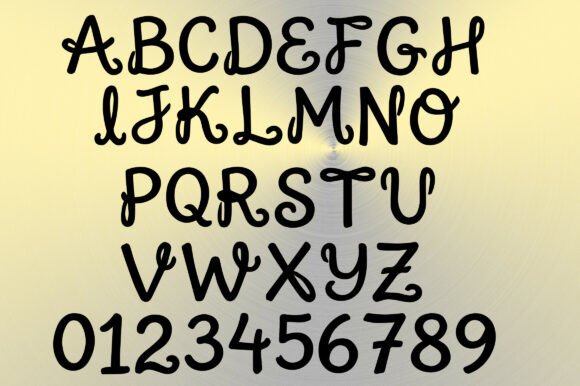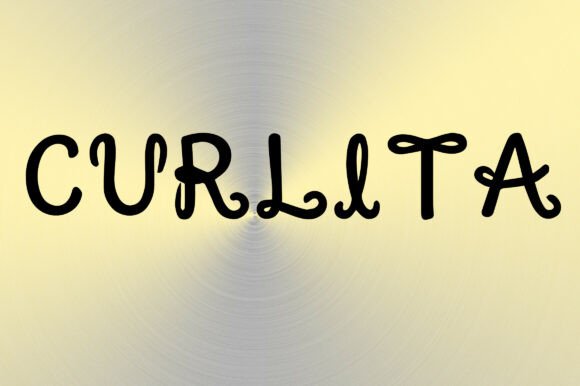
Curlita Font: The Ultimate Choice for Playful and Creative Designs
Are you looking for a font that can add a touch of playfulness and whimsy to your designs? Look no further than Curlita Font! This beautiful handwritten display font is perfect for creating cute, feminine, cheerful, and creative designs that are sure to capture the attention of your audience.
What is Curlita Font?
Curlita Font is a playful handwritten display font that features soft curves, whimsical loops, and a charming decorative feel. Its curly details and friendly style make it perfect for a wide range of design projects, from branding and packaging to invitations and social media graphics.
Key Features of Curlita Font
- Playful and Whimsical: Curlita Font features soft curves and whimsical loops that give it a playful and carefree feel.
- Feminine and Cheerful: The font’s curly details and friendly style make it perfect for creating feminine and cheerful designs.
- Handwritten: Curlita Font is a handwritten display font that adds a personal touch to any design.
- Decorative: The font’s decorative feel makes it perfect for creating eye-catching designs that stand out.
Uses of Curlita Font
Curlita Font is a versatile font that can be used for a wide range of design projects, including:
- Branding and Packaging: Use Curlita Font to create cute and feminine branding and packaging designs that appeal to a female audience.
- Invitations and Party Decor: The font’s playful and whimsical feel makes it perfect for creating invitations and party decor designs that are fun and festive.
- Social Media Graphics: Use Curlita Font to create eye-catching social media graphics that stand out in a crowded feed.
- Blog and Website Design: Add a touch of playfulness and whimsy to your blog or website with Curlita Font.
Why Choose Curlita Font?
There are many reasons why Curlita Font is the perfect choice for designers and crafters, including:
- Unique and Eye-Catching: Curlita Font is a unique and eye-catching font that will make your designs stand out.
- Easy to Read: Despite its playful and whimsical feel, Curlita Font is easy to read and can be used for both headings and body text.
- Versatile: Curlita Font can be used for a wide range of design projects, from branding and packaging to invitations and social media graphics.
- Friendly and Approachable: The font’s friendly and approachable feel makes it perfect for creating designs that appeal to a female audience.
Tips for Using Curlita Font
Here are a few tips for using Curlita Font in your designs:
- Use it for Headings: Curlita Font is perfect for headings and titles, where its playful and whimsical feel can really shine.
- Pair it with a Simple Font: Pair Curlita Font with a simple font for body text to create a beautiful contrast.
- Experiment with Colors: Curlita Font looks great in a wide range of colors, so don’t be afraid to experiment and find the perfect color for your design.
Curlita Font is a beautiful and versatile font that is perfect for designers and crafters who want to add a touch of playfulness and whimsy to their designs. Its curly details and friendly style make it perfect for creating cute, feminine, cheerful, and creative designs that are sure to capture the attention of your audience. So why not give Curlita Font a try and see how it can elevate your designs?